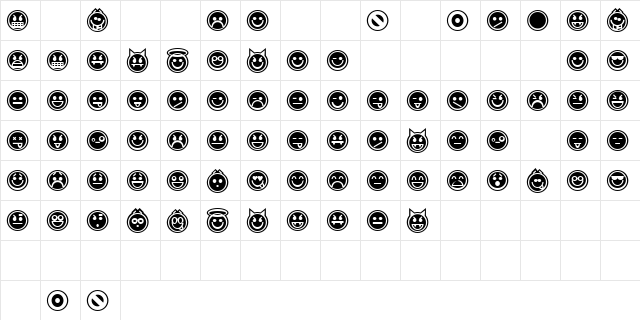
Complete Emoticons Outline Regular glyph index. Displaying only characters natively supported by Emoticons Outline Regular font.
Emoticons Outline is built around its visual character rather than neutral utility - its distinctive forms are designed to make an impression at display sizes.
Font Pairing: Pair with a clean neutral sans-serif for body copy to let Emoticons Outline's character lead without overwhelming the composition.
Pro Tip: Use Emoticons Outline exclusively at display sizes - it was designed to be seen, not read at length. Let a neutral companion handle body copy.